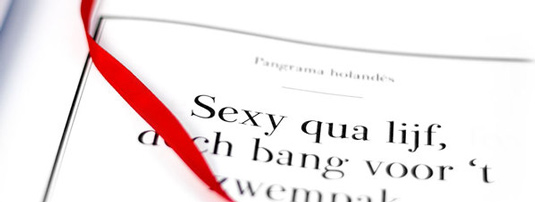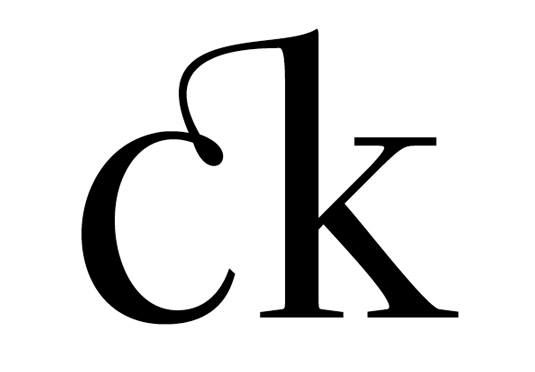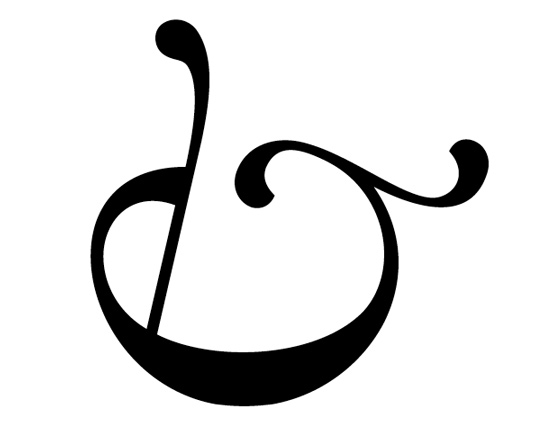
Font of the day: Valentina
Valentina by Pedro Arilla
Type designer Pedro Arilla is behind today's font of choice, Valentina. "This typeface is a sincere tribute to my grandmother in the form of typography and therefore bears her name," he comments on Behance. "Valentina is a classic didone that follows some of the canons proposed by Bodoni in the eighteenth century but incorporates many of the characteristics of the antique Spanish punches of the time."